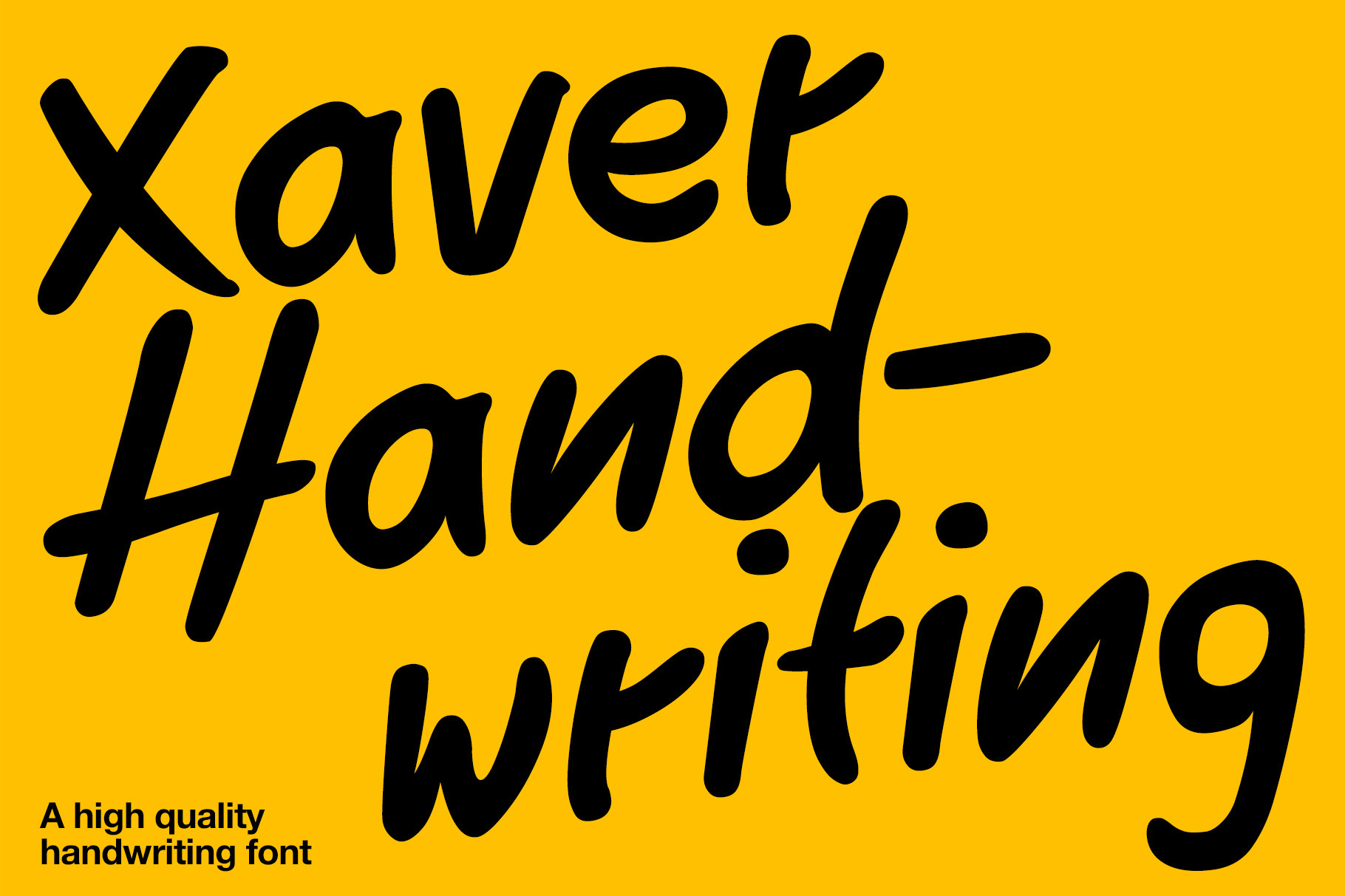
Xaver Handwriting Font
Xaver Handwriting is in the sweet spot between authentic handwriting and very readable script. The original handwriting template was vectorized and optimized by hand. It contains lowercase and uppercase letters and can be used as a mixed flow text font as well as a capital font. It also offers language support for the entire European region, as well as for North & South America and Oceania.